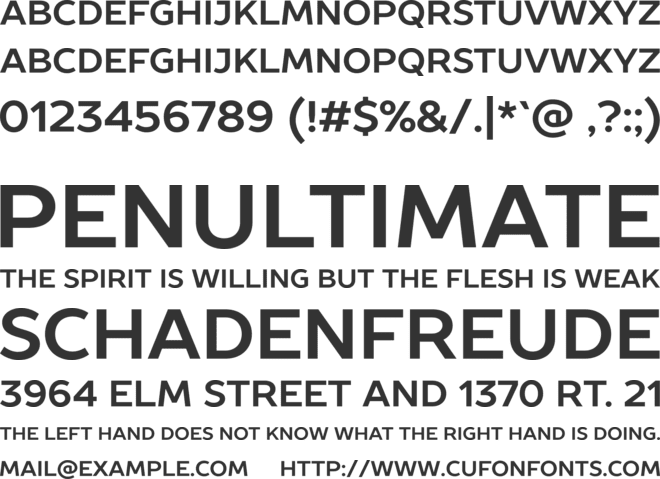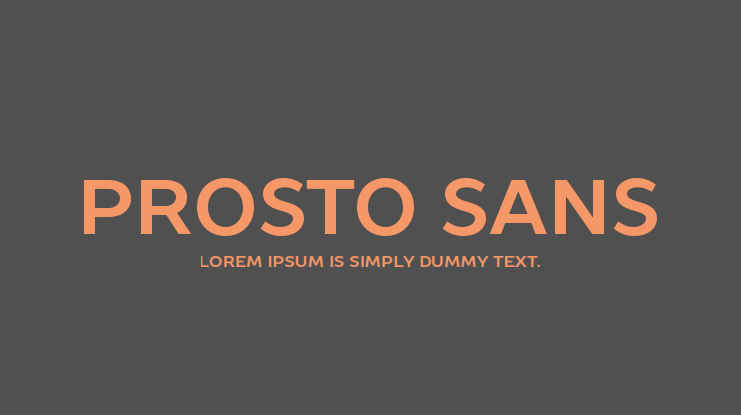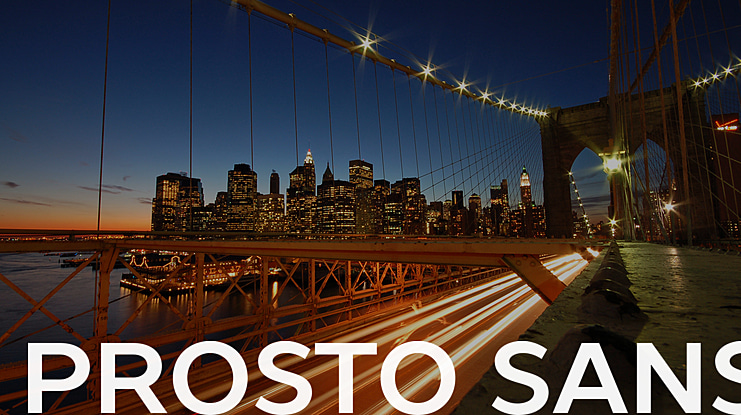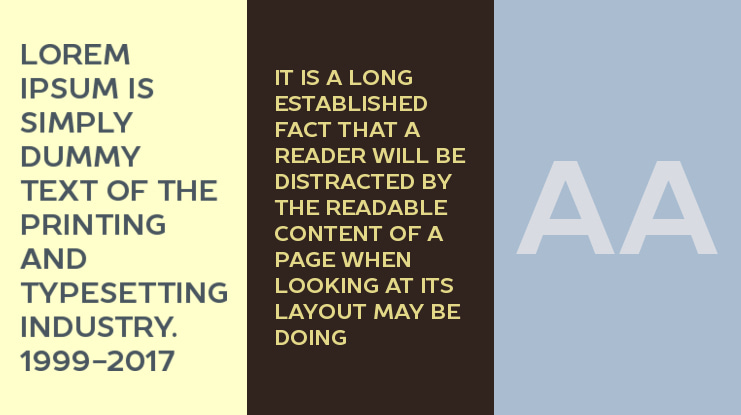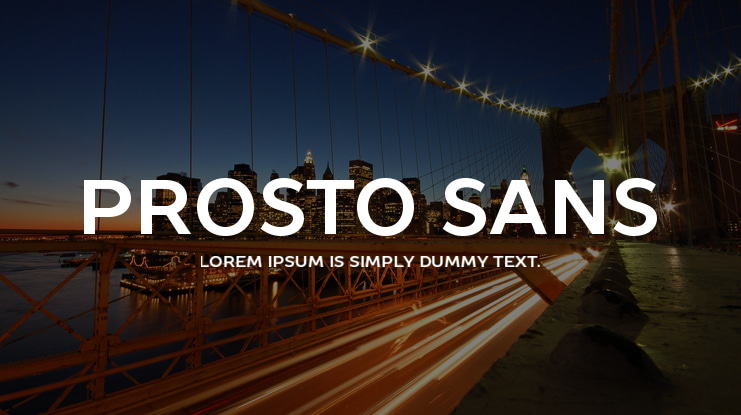
Prosto Sans Font
Prosto Sans Bold â is free font which is a cropped version of the Prosto Sans font family. Prosto Sans quality sans serif fonts created for casual use in interactive environments. This font family was based on the legendary Prosto free font. We added in this font family new typefaces and support for many codepages and languages. The fonts are very convenient to use in web, mobile apps and in desktop computers. The font family Prosto Sans contains many languages and alphabets, and is compatible with other TypeType fonts.